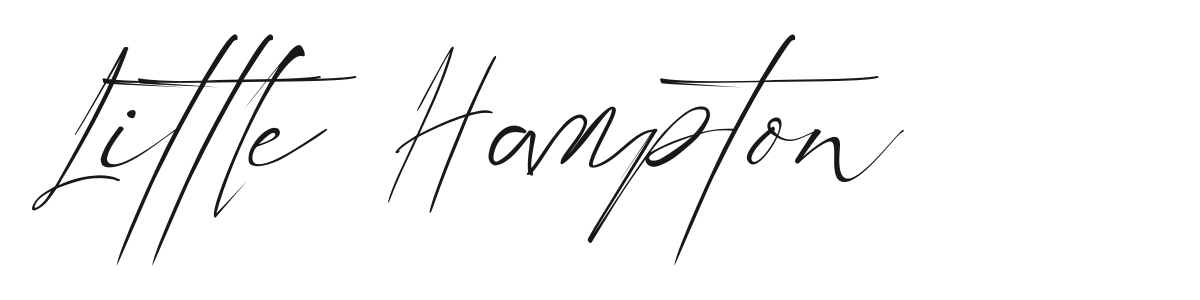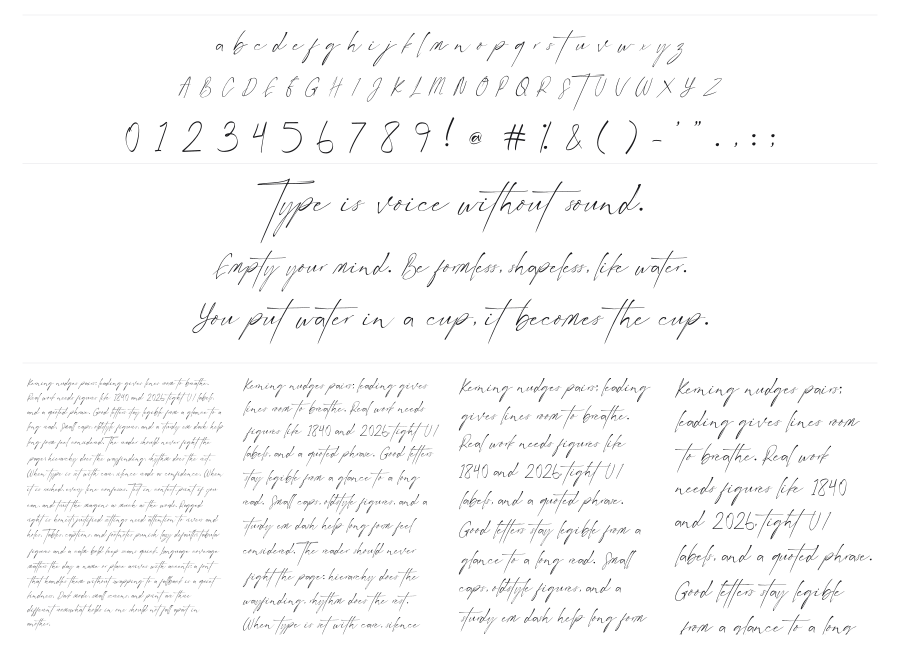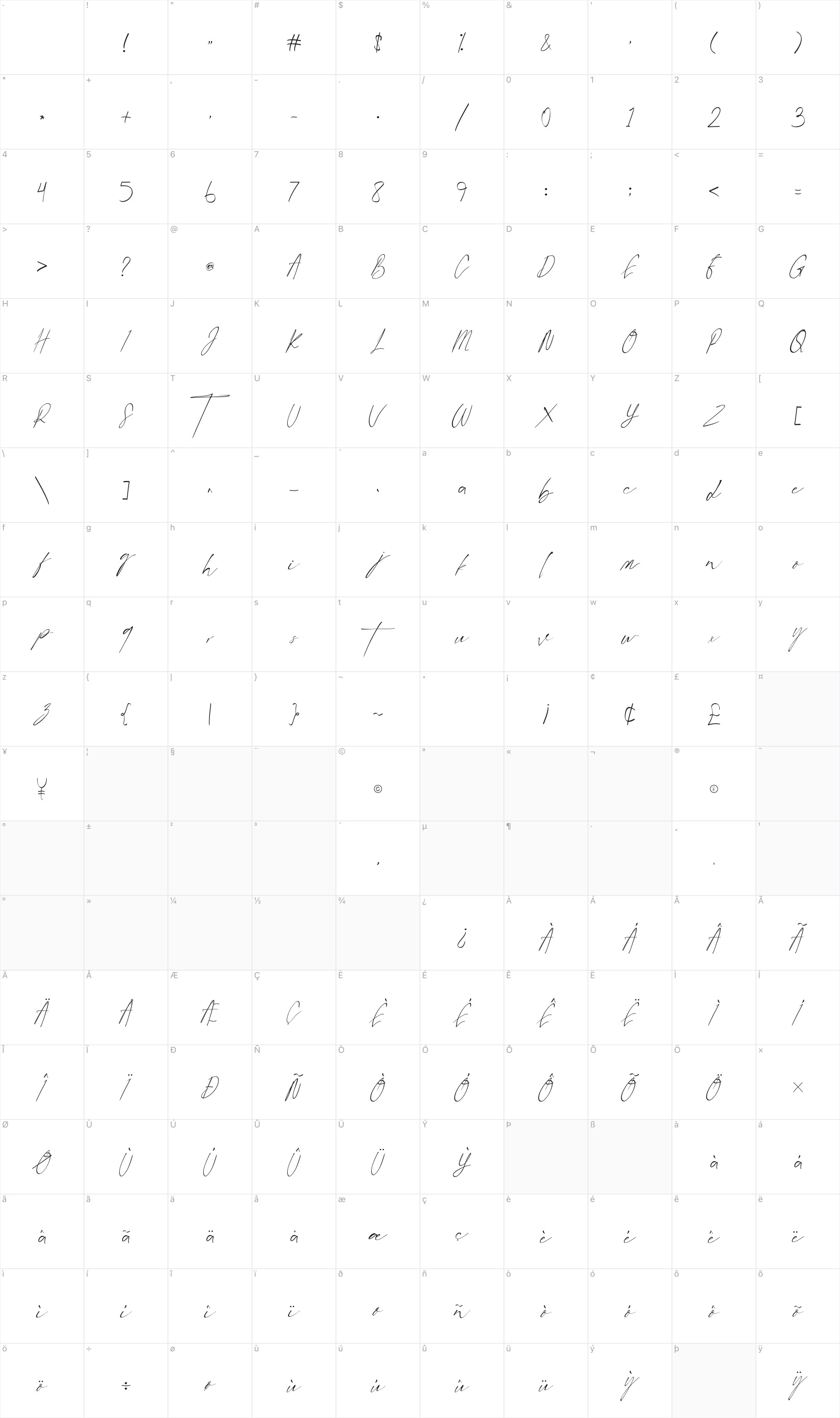
Little Hampton
Little Hampton is a wispy, free-flowing casual script with hairline strokes and long expressive swashes that sweep across the baseline. Its loose, ink-pen character gives it a spontaneous romantic energy that suits wedding stationery, editorial headers, and boutique branding. The extreme thinness means it sings best at large sizes.